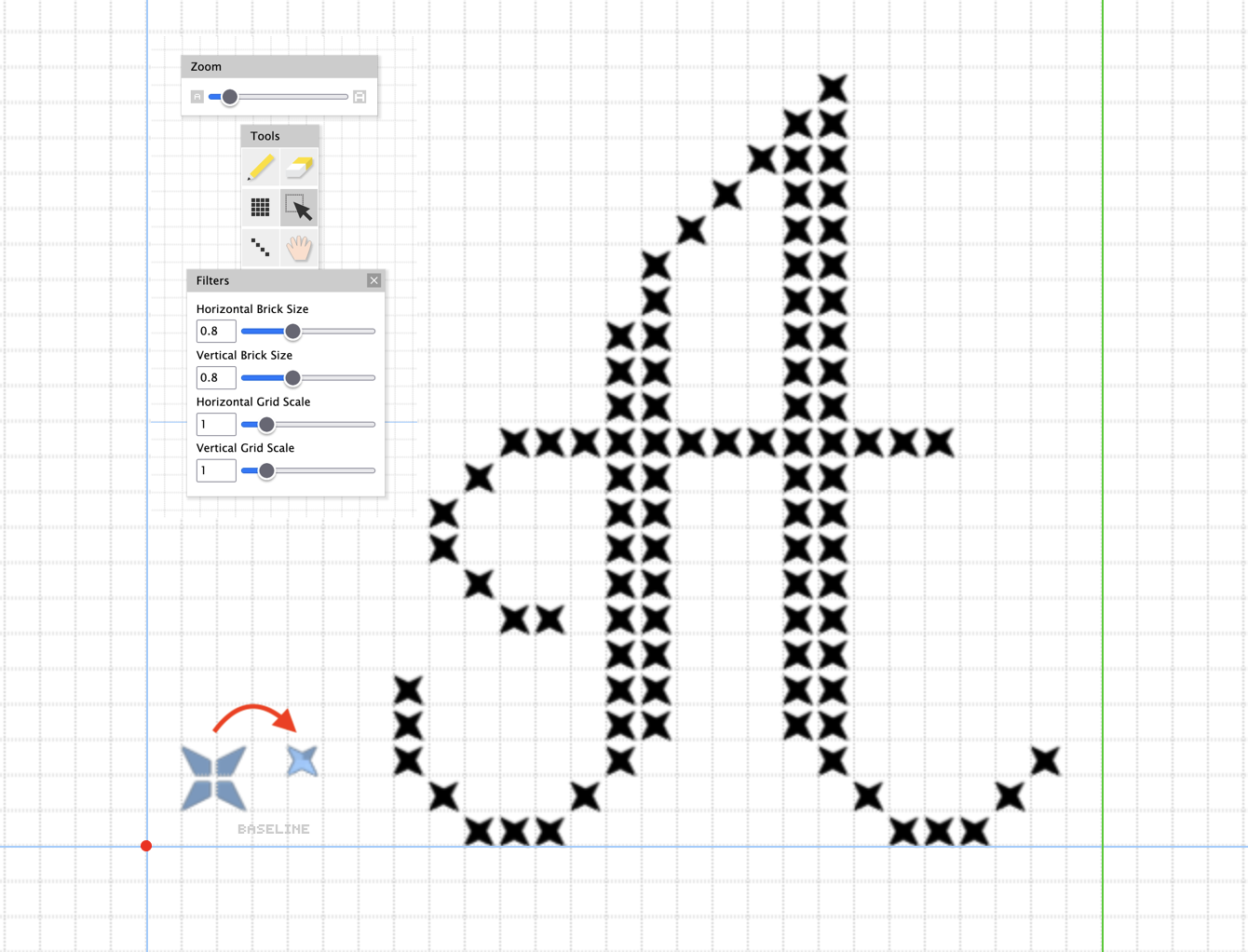
@Katrina Cigarette: Hi. I like cross-stitch fonts like the one you posted. That's why I humbly suggest you create a variation with a more realistic x-shaped pattern (it would be simple, just create a composite brick like the one I show and replace the previous +-shaped bricks with the new x-shaped ones). Here's also a sample of what your A would look like with them. Thanks.
@elmoyenique when i created this font, it was originally just a pixelated font and then i decided to change the shape of the pixels, it never occurred to me that it could resemble cross stitching !! your idea is brilliant , i'm on it
Congrats on the TP! I love the little hearts over the i and j. Do you plan to complete the font with diacritics and other glyphs?
One more thing: the font would benefit from a little more space between words, IMHO.
maybe do the space double the size
@elmoyenique: i'll definitely add more glyphs when i have time!
@elmoyenique, @elliqvl: made the spaces bigger, hope it's better now :)
The capital somehow looks similar to the Vietnamese Uppercase cursive, that's impressive tho.